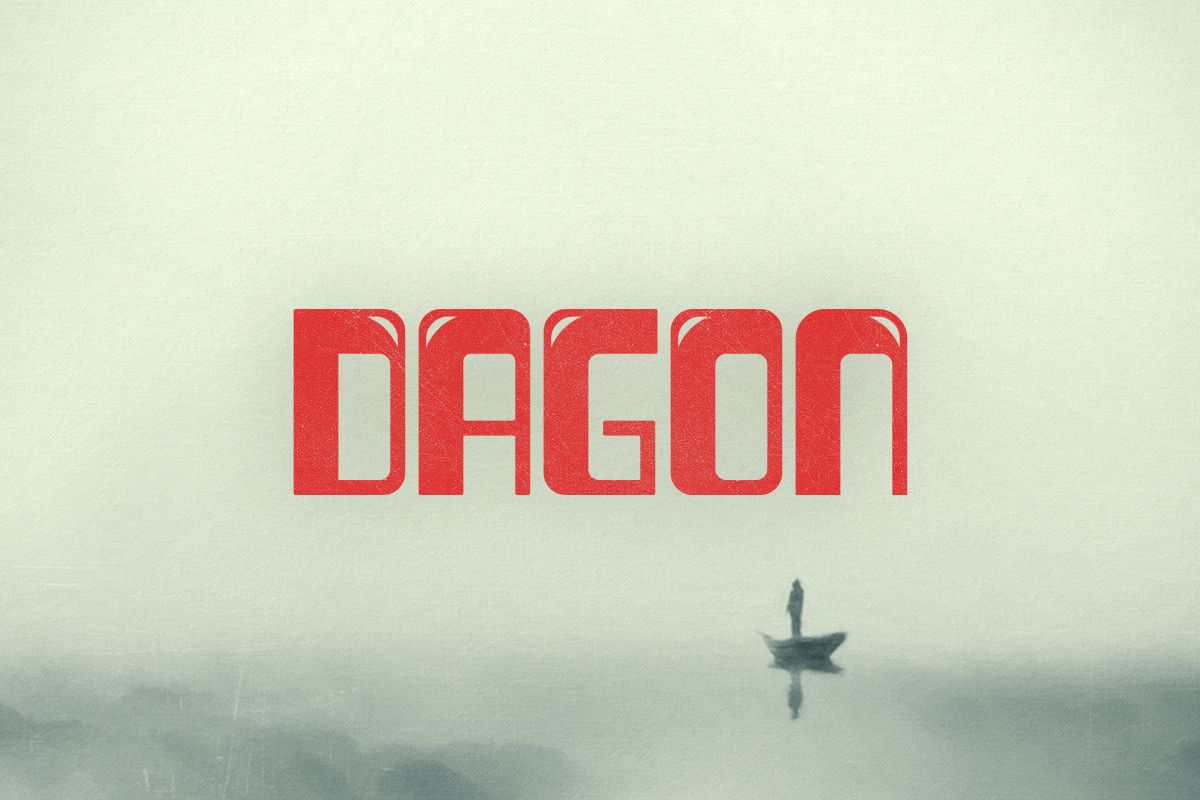
Dagon Typeface
Dagon Bubbly
Dagon Regular
Dagon Diagonal
Dagon is a display font family in 3 different styles. The bubbly version has a fun, groovy style while the regular and diagonal versions have a retru-futuristic feel to them.